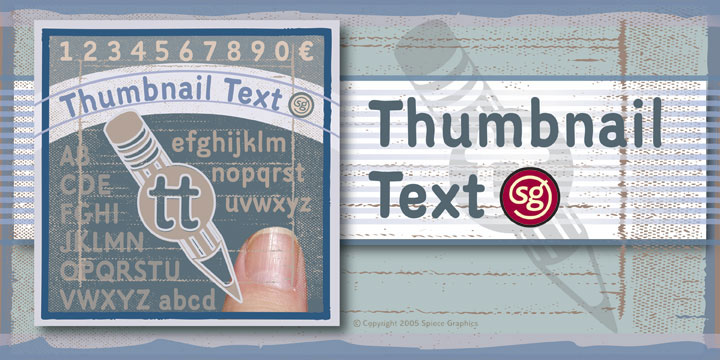
Thumbnail Text Regular SG OT STD (1 font)
With its slightly rough edges, Thumbnail Text works well where lettering is required. Letterforms wiggle a bit here and there but are generally quite uniform. Characters are a bit imprecise - but not showy or bouncy. They appear more adult-looking than childish and are very legible.
Put Thumbnail Text to work as drafting notation or on blueprint projects that need to be easily read. It¹s also useful when concept or sketch stage lettering needs to look serious but not highly stylized. You might experiment with it inside cartoon thought balloons or in callouts.
This design is based on an old showcard style from the 1940s. It's been dusted off and reissued for modern use. A lowercase has been added for greater functionality.